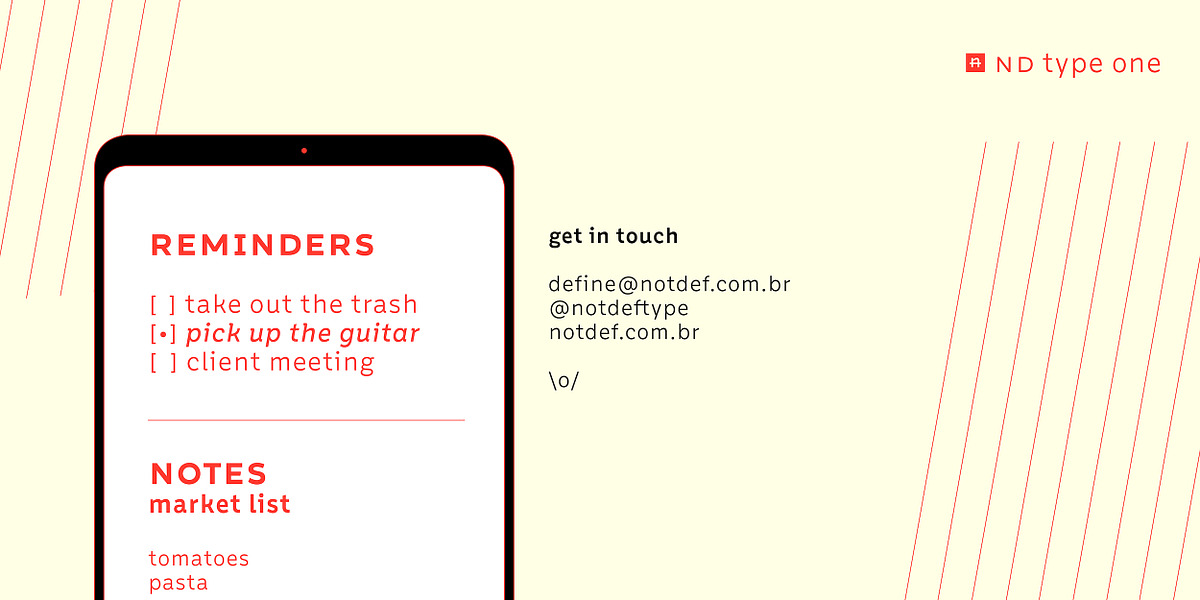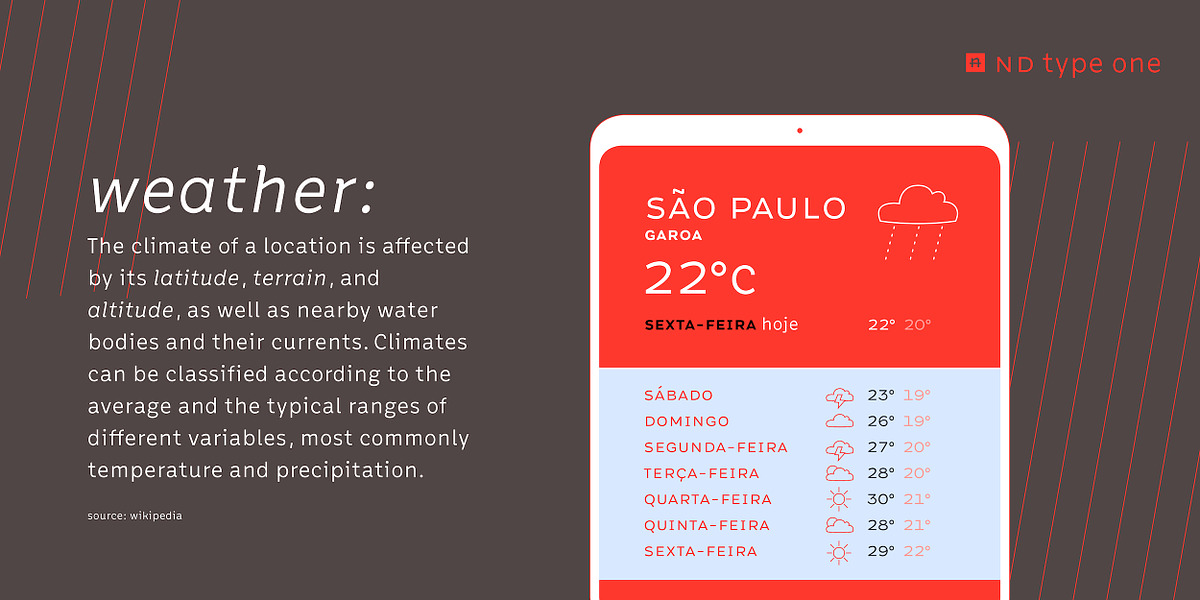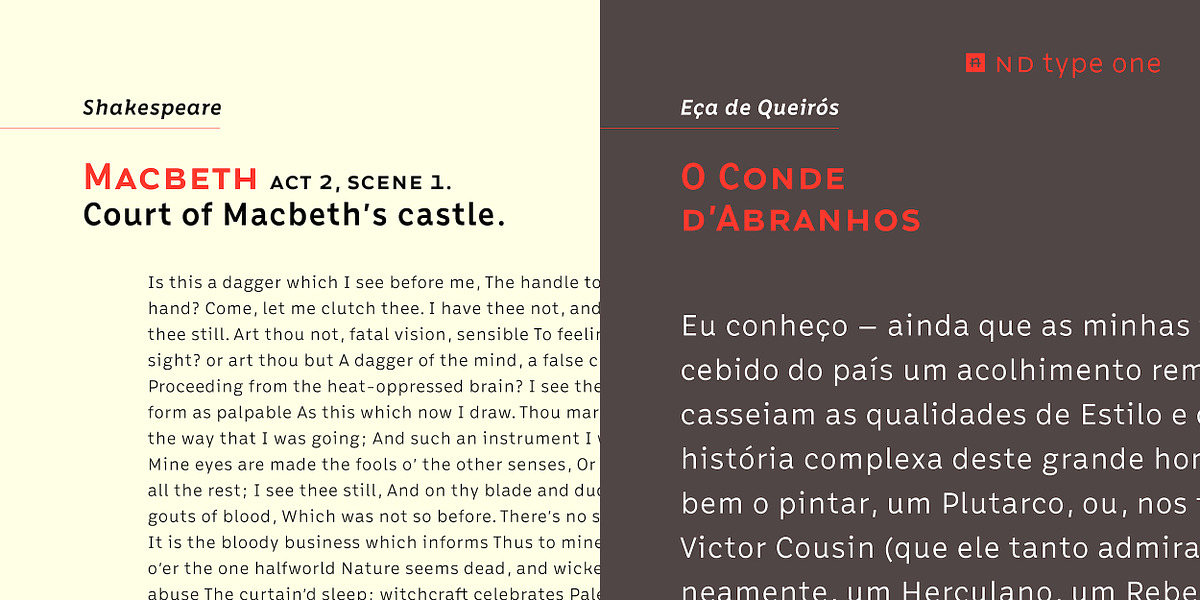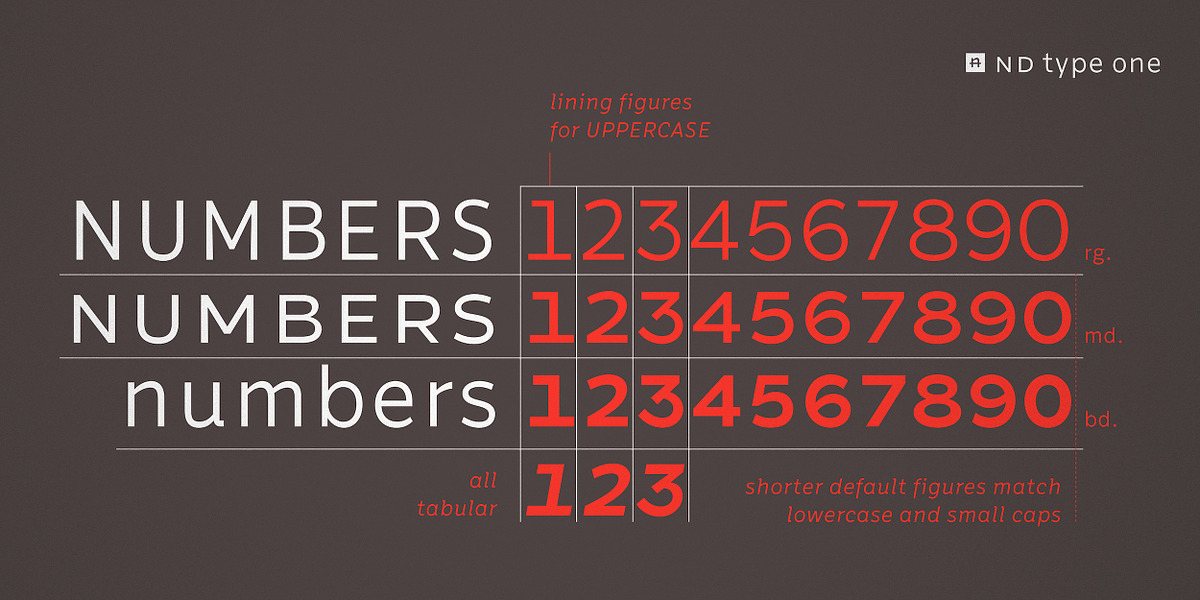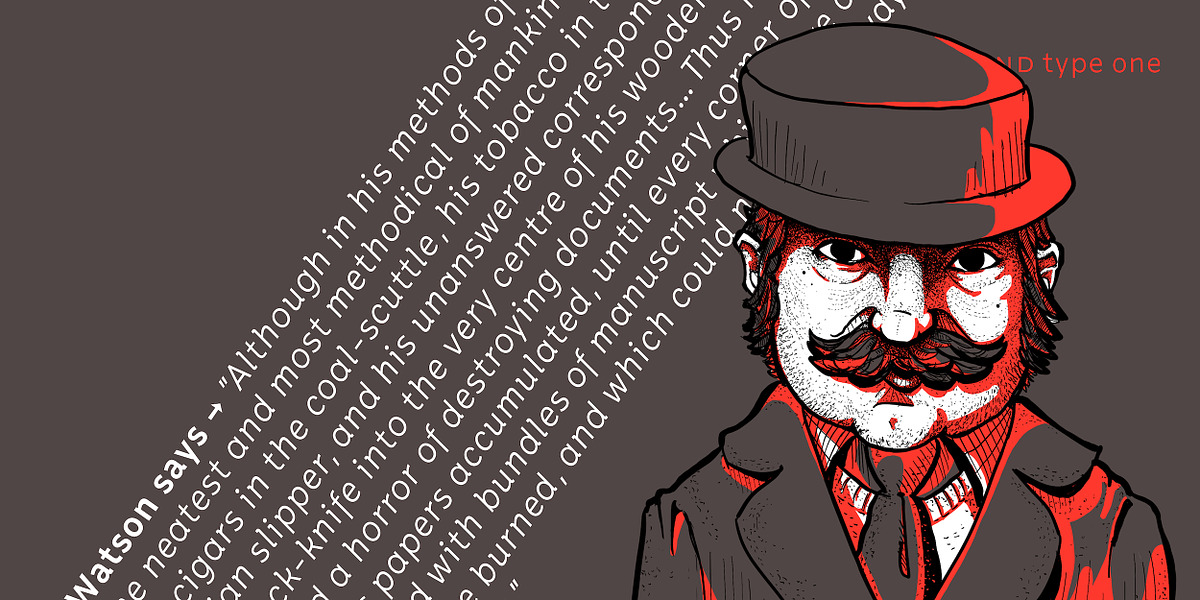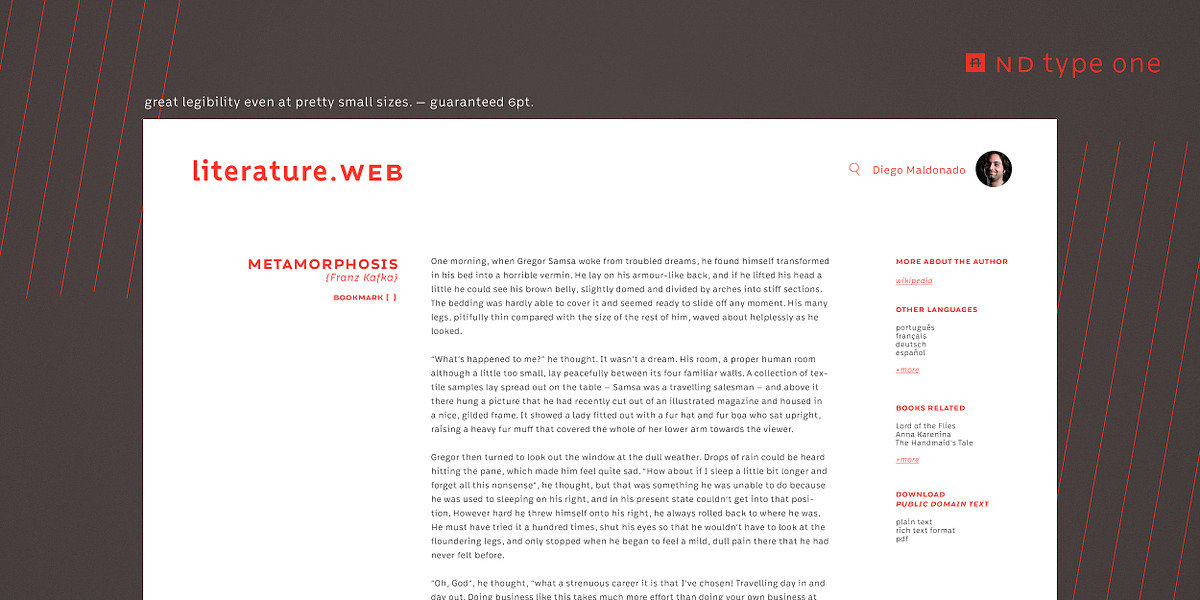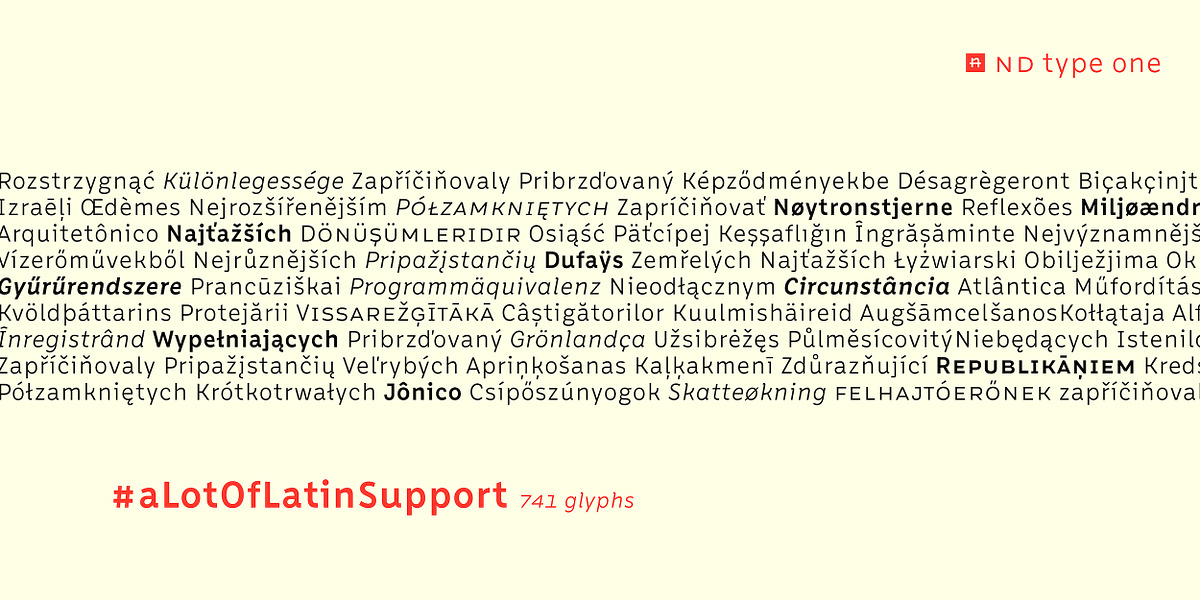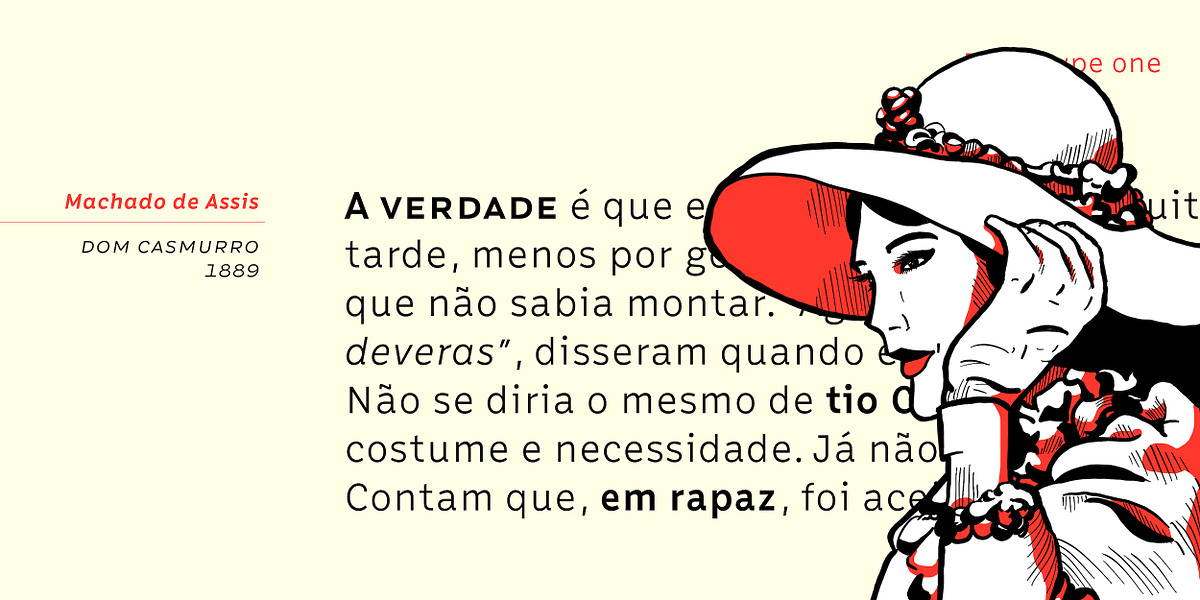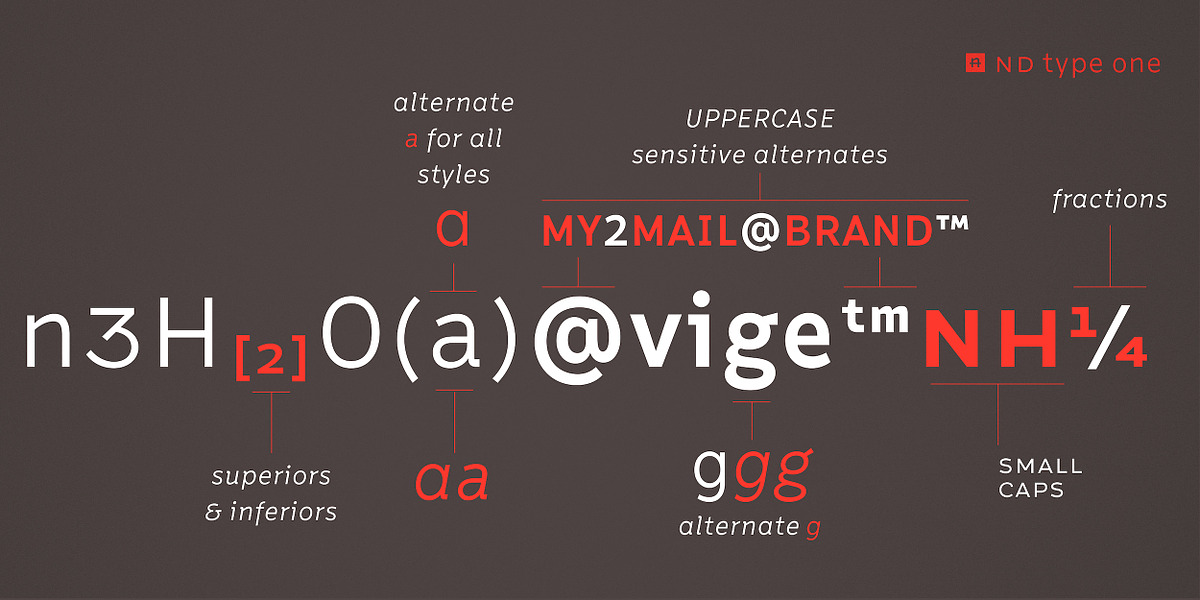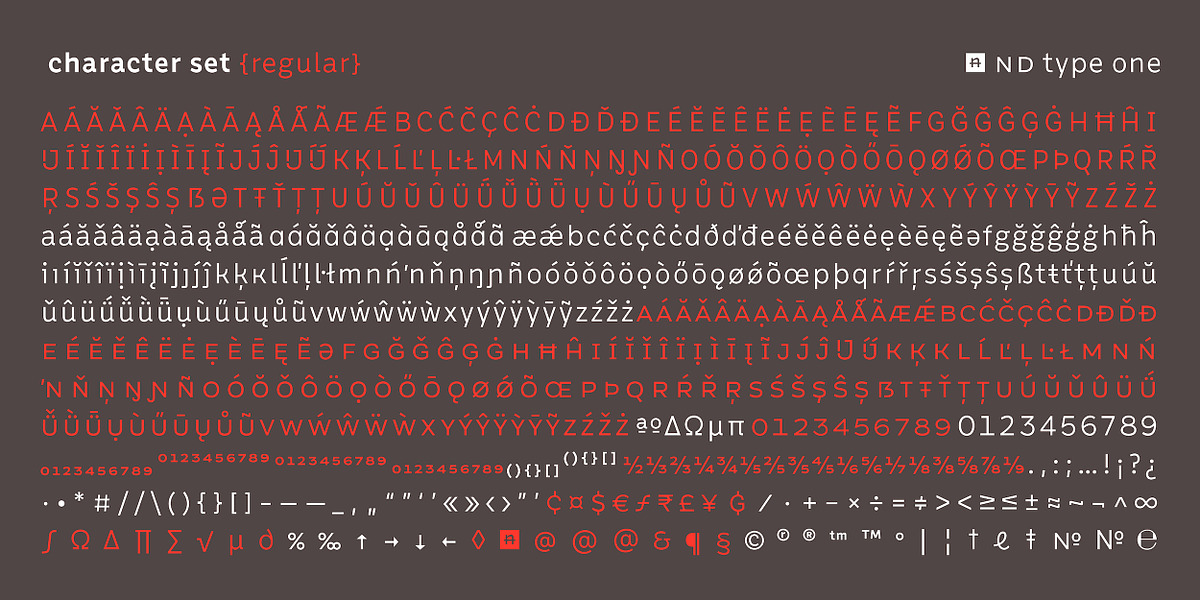
nd type one
Nd type one is a versatile humanist sans serif font designed for readability at small sizes. Its wide Latin set supports over 200 languages, making it suitable for diverse audiences. The font includes features like small caps, tabular numbers, fractions, and alternate characters, enhancing its versatility for various typographic applications.